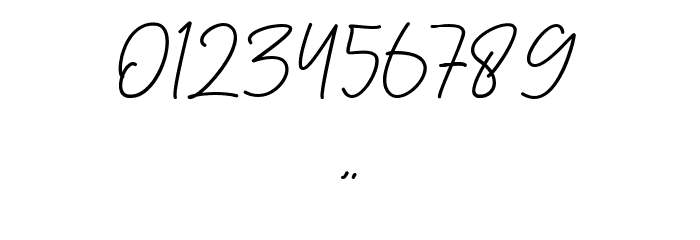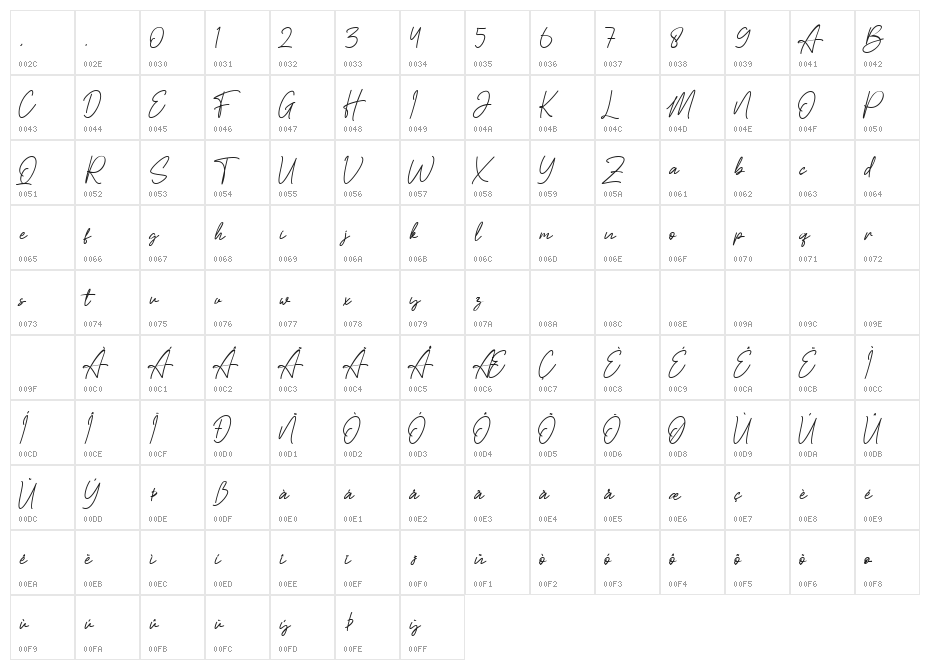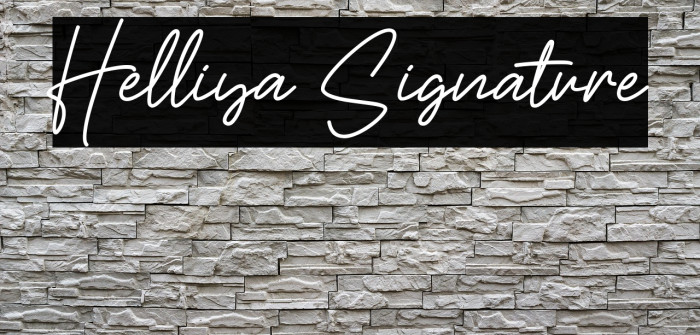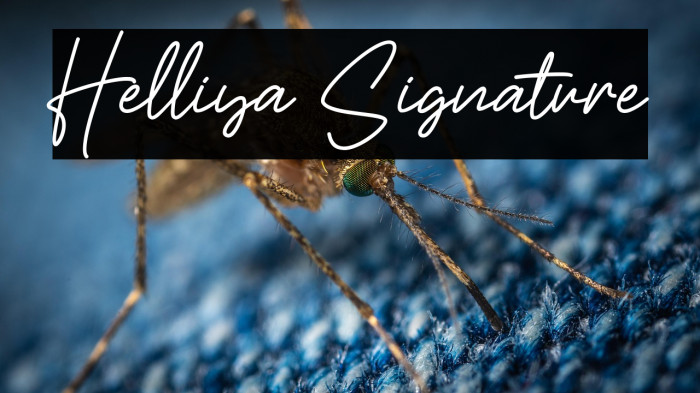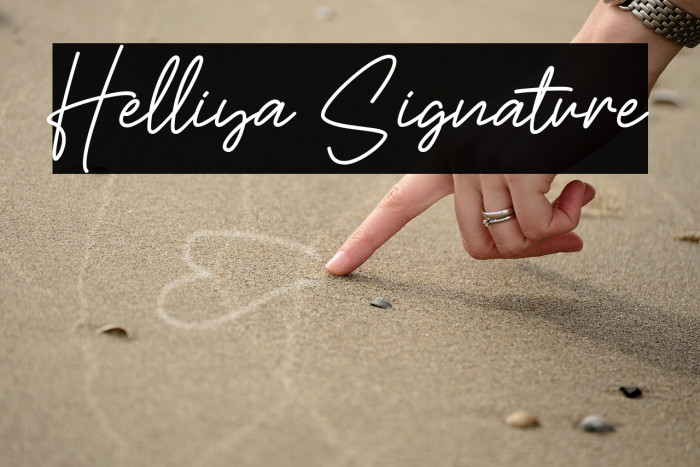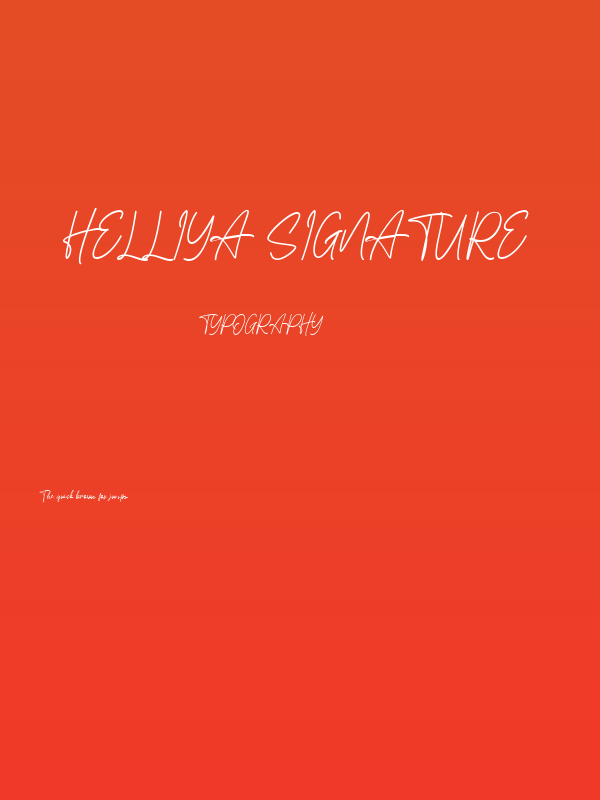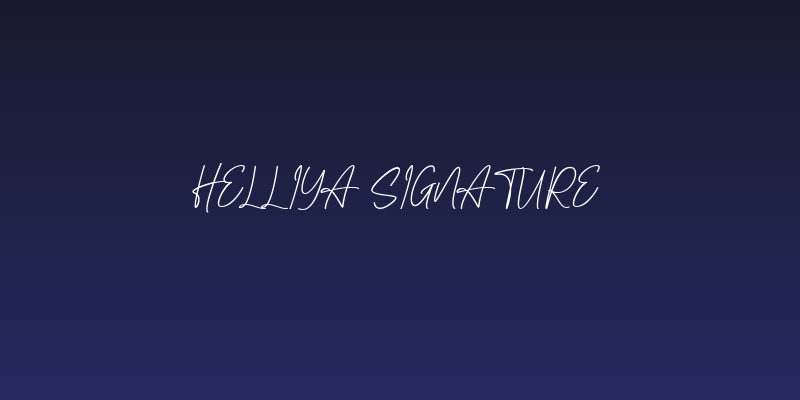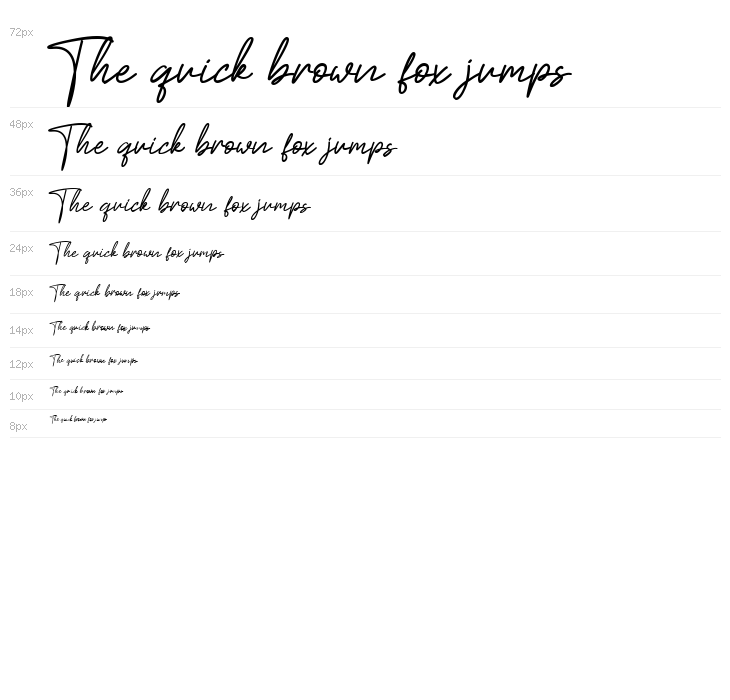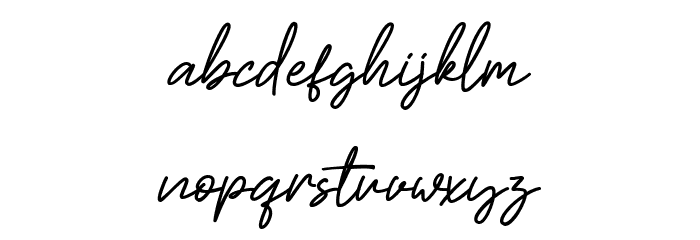
Helliya Signature Font
Helliya Signature Description
This font exudes a modern and elegant handwritten style, characterized by smooth, flowing lines that mimic natural handwriting. The uppercase letters are tall and slightly slanted, giving a sense of sophistication and grace. The lowercase letters maintain a consistent flow, with some letters featuring unique loops and curves that add a personal touch. Numbers are clear and easy to read, maintaining the same fluid style as the letters. The special characters are designed to blend seamlessly with the rest of the font, ensuring a cohesive look across all text. This font is perfect for projects that require a personal, elegant touch, such as invitations, branding, and personal correspondence.
| Use Case | Logos, Invitations, Personal Correspondence |
| Proposed Projects | Ideal for wedding invitations, personal branding, greeting cards, and elegant logos. |